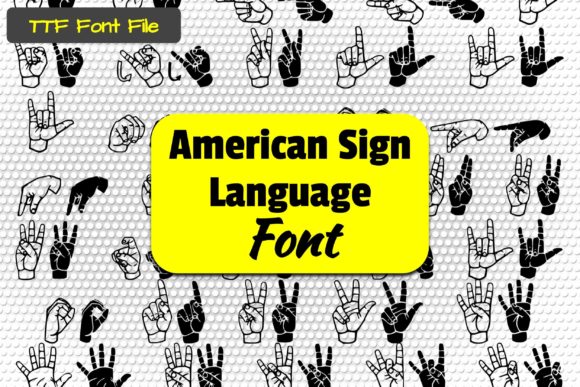
The Power of American Sign Language in Design: Unlocking the Potential of Able Lingo ASL 1 Font
As a designer, I’ve had my fair share of moments where I struggled to find the perfect font for a project. But one font that has truly stood out to me is the Able Lingo ASL 1 Font, a useful and adaptable dingbats font that has become a staple in my font library. In this article, I’ll share my experience with this font, its features, and how to make the most of it in your designs.
A Design Moment: The Struggle is Real
I recall working on a project for a client who wanted to create a social media campaign that promoted inclusivity and accessibility. They asked me to incorporate American Sign Language (ASL) into the design, which was a great idea, but I quickly realized that finding the right font was going to be a challenge. That’s when I stumbled upon Able Lingo ASL 1 Font, and it changed the game.
Here’s what I love about Able Lingo ASL 1 Font:
• ✨ Unique and versatile: This font is not just a one-trick pony; it’s a versatile dingbats font that can be used in a variety of contexts, from social media graphics to presentations and even video scripts.
• ✅ Easy to read: The font is clear and easy to read, making it perfect for designs that require a high level of legibility.
• 💡 Inclusive: By incorporating ASL into your design, you’re promoting inclusivity and accessibility, which is essential in today’s design landscape.
And here are some small quirks or limitations:
• 🤔 Learning curve: While the font is easy to use, it does require some time to learn the different glyphs and how to use them effectively.
• ⚠️ Limited characters: As a dingbats font, Able Lingo ASL 1 Font has a limited character set, which means you’ll need to get creative with how you use it.
The creator of Able Lingo ASL 1 Font was inspired by the importance of inclusivity and accessibility in design. They wanted to create a font that would allow designers to communicate effectively with a wider audience, including those who are deaf or hard of hearing. The font is a testament to the power of design to bring people together and promote understanding.
What is Able Lingo ASL 1 Font? Able Lingo ASL 1 Font is a dingbats font that features American Sign Language (ASL) glyphs and symbols.